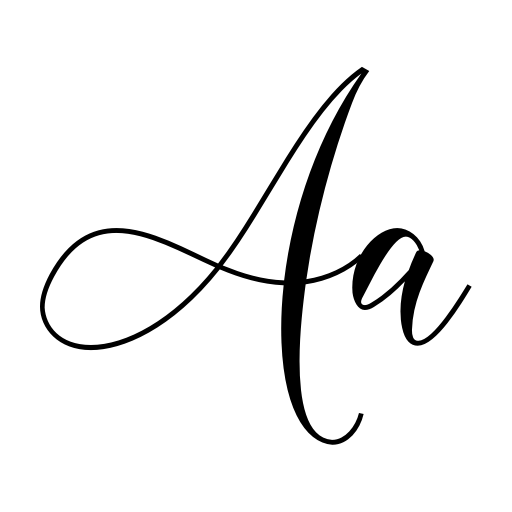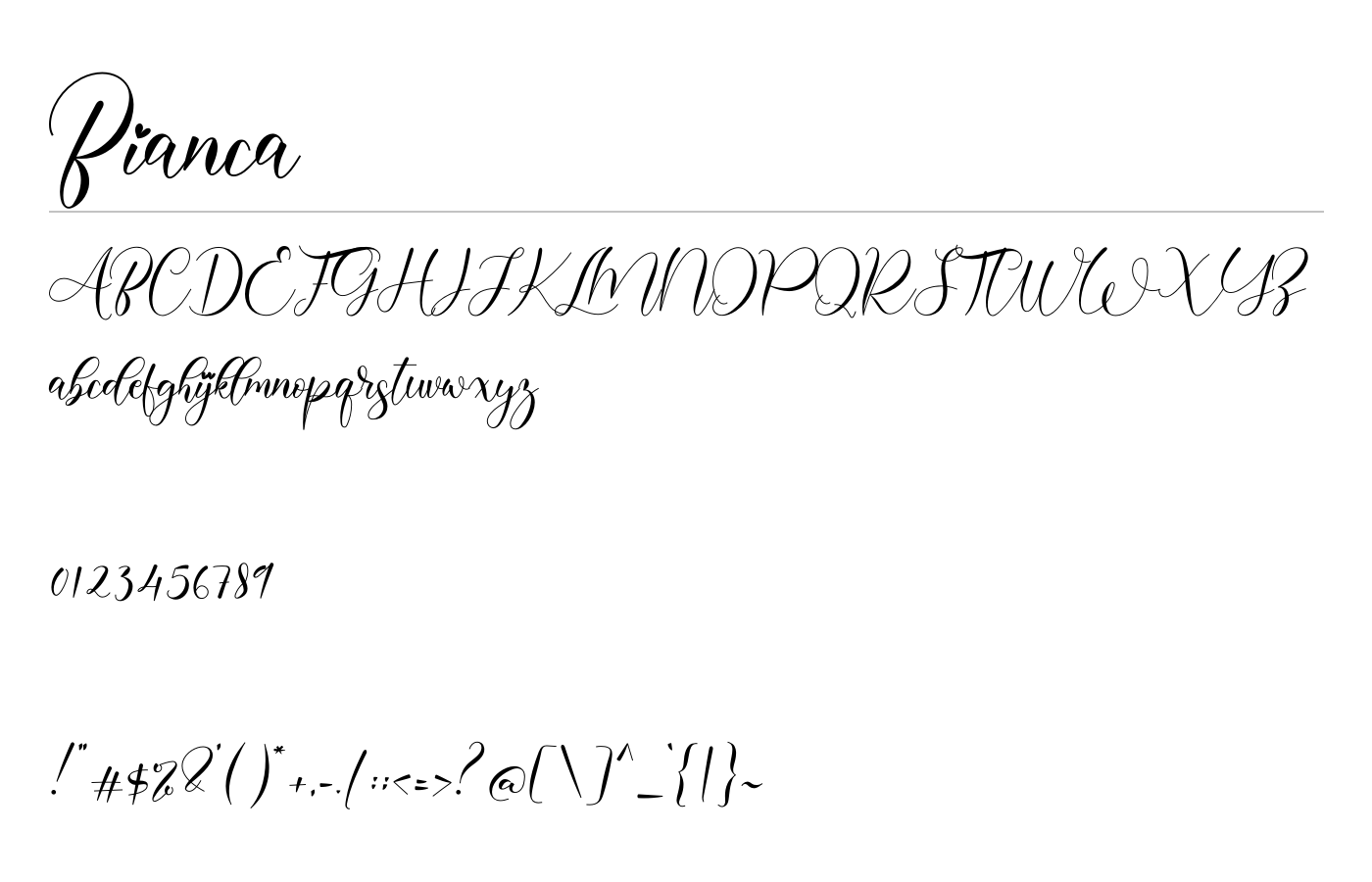
Bianca Font is an elegant, delicate script typeface characterized by its flowing, graceful strokes and fine lines that convey a sense of sophistication and charm. With its handwritten style, smooth curves, and unique heart-shaped detail on the lowercase 'i', it is perfect for romantic or feminine branding, wedding invitations, and luxury packaging where a personal and refined touch is desired. This font works beautifully in headlines, logos, and decorative text that aims to evoke warmth and elegance.
Bianca Font